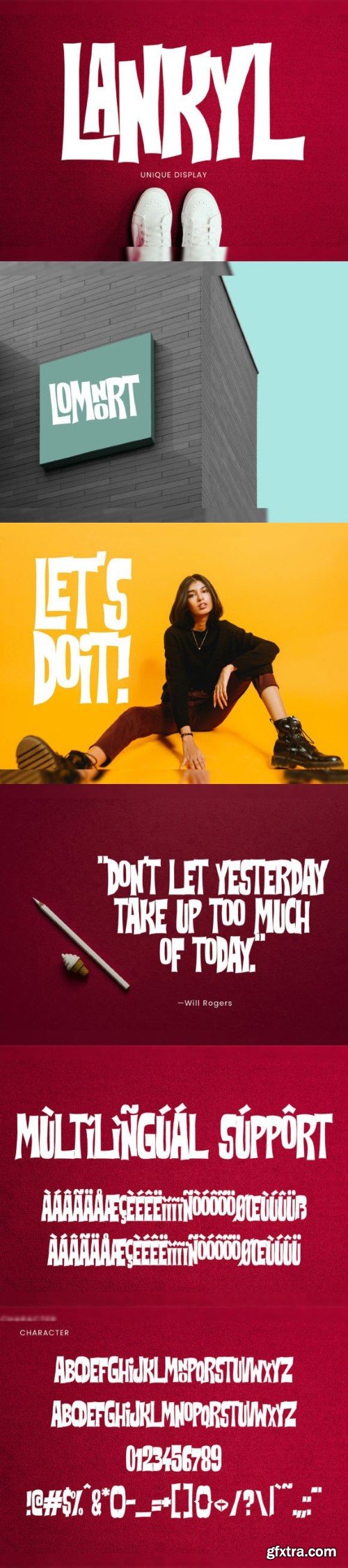
兰克尔字体
Lankyl is a one-of-a-kind display font that stands out with its distinctive and unique style. Its bold and quirky design adds personality to any project, making it perfect for headlines, logos, and attention-grabbing text. If you’re looking for a font that breaks the mold and adds a playful touch, Lankyl is the go-to choice for making your designs stand out from the crowd.